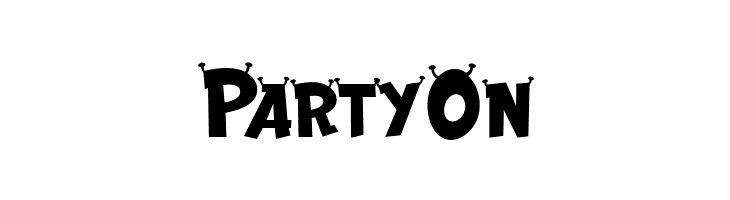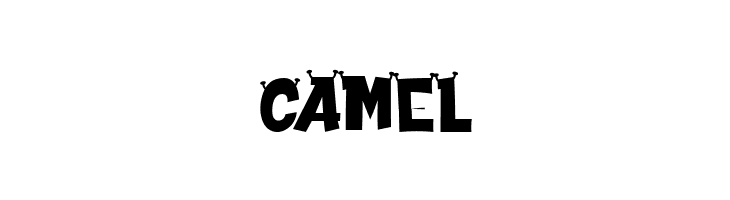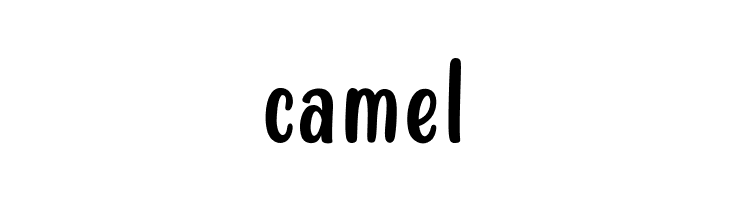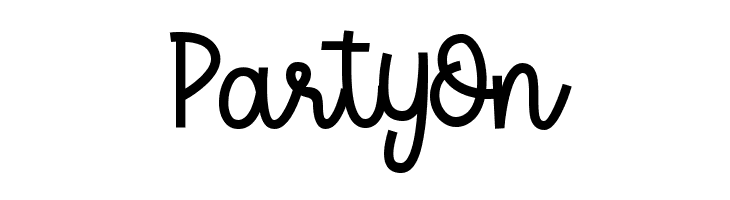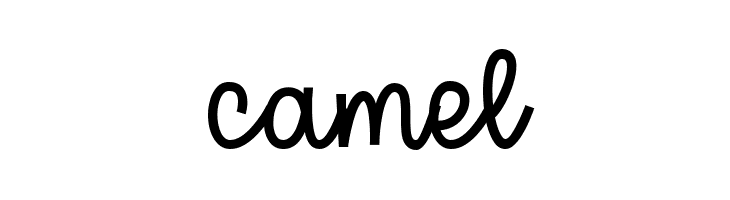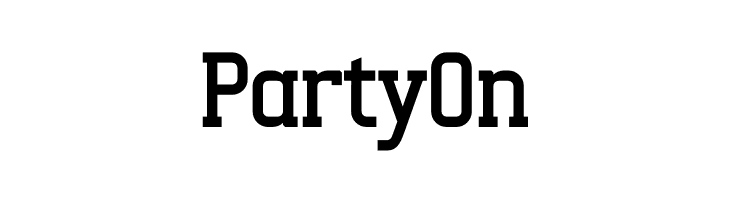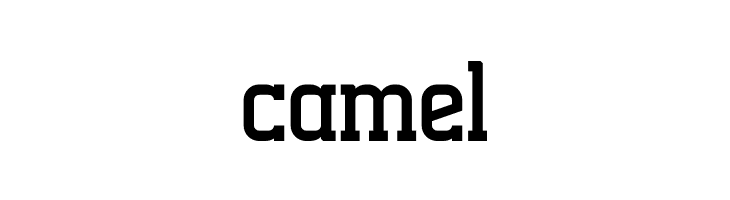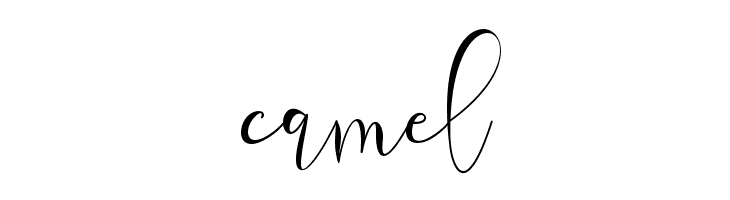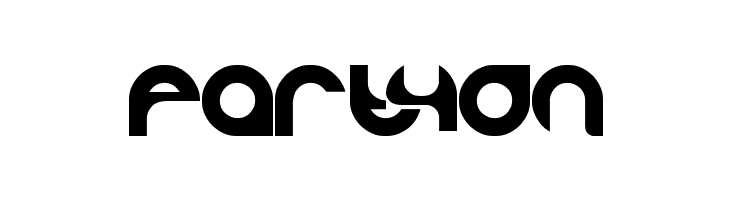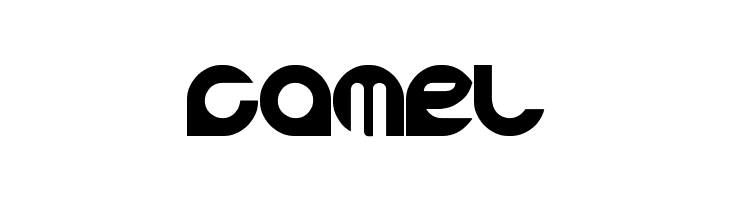
• ALEXANDRA
A bold, geometric font with a futuristic and modern design.
• Alexandroupoli
A dynamic cursive script font with elegant, fluid strokes.
• Alexside
A bold, slab serif font with strong geometric shapes and a robust presence.
• ALIEN INVASION
( Fonts by Fachran Heit )
A bold, playful font with alien-inspired design and quirky details.
• ALL ABOUT LOVE
A whimsical font with heart-shaped elements, perfect for romantic designs.
• Alletha - Personal Use
A graceful script font with fluid, elegant strokes and a handwritten style.
• Almira
A modern sans-serif font with clean lines and excellent readability.
• Almond Cookies
( Fonts by Kurnia Setyadi )
A playful, rounded font with smooth curves and a friendly vibe.
• Aloha March
A playful, handwritten script font with a whimsical and friendly style.
• Aloha March line
A playful, hand-drawn script font with whimsical embellishments.